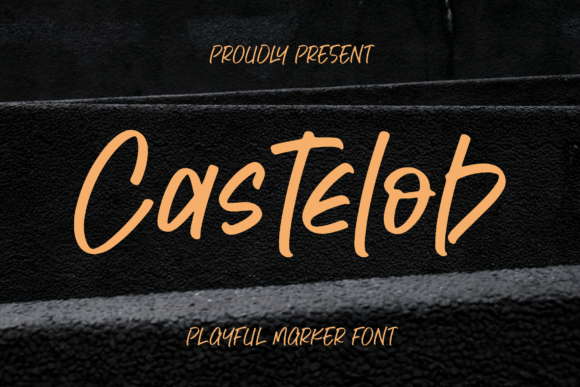
Welcome to the realm of Castelob Font, where elegance meets playfulness in a fluid dance of creativity! Let your designs blossom with a touch of the unexpected as you explore this magnificent script font, crafted with love by Letterfabric.
Picture a font that captures the essence of joy and whimsy, effortlessly weaving its magic into logos, branding projects, homeware designs, product packaging, and a myriad of other creations. From mugs and quotes to posters and shopping bags, Castelob Font transforms everyday items into captivating expressions of your unique style.
Imagine transforming your t-shirts into walking works of art, adorned with words that flow like a gentle melody. Book covers and name cards take on a life of their own, exuding an aura of sophistication and charm. Wedding invitations and greeting cards become treasured keepsakes, each adorned with a touch of heartfelt elegance.
Step into a world where labels and photography come alive, infused with the vibrancy and personality of Castelob Font. Special events take on a new level of enchantment, as this extraordinary font lends its allure to every detail. Whether you're a seasoned designer or simply seeking to add a touch of magic to your personal projects, Castelob Font is your passport to a world of enchantment.
Dive into the enchanting realm of Castelob Font and allow your creativity to flourish amidst a symphony of exquisite characters. Each letter dances across the page with a grace and charm that captivates the senses, leaving an indelible mark on your designs. Unlock the full potential of this font masterpiece and witness the transformation of your creations into works of art that resonate with the heart.